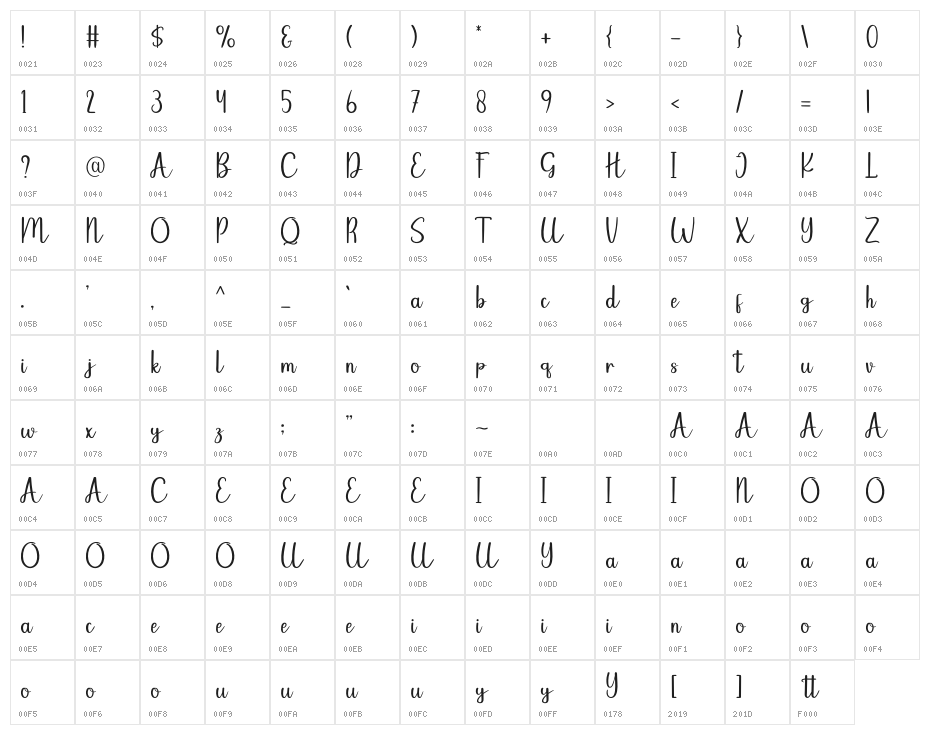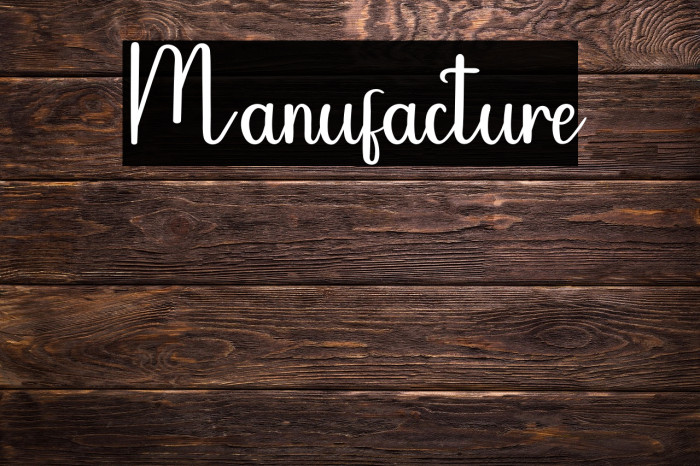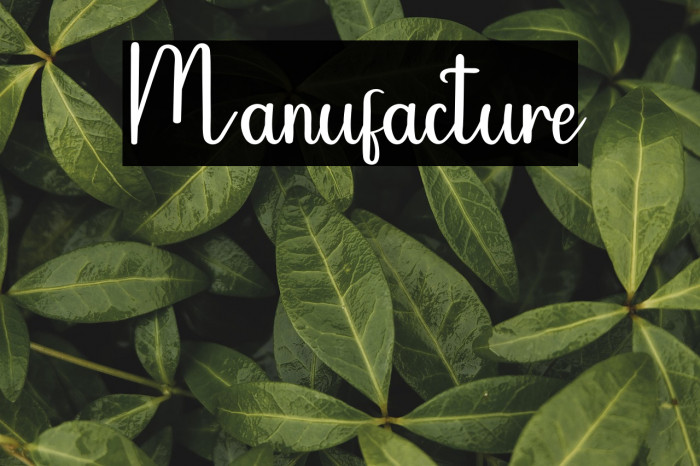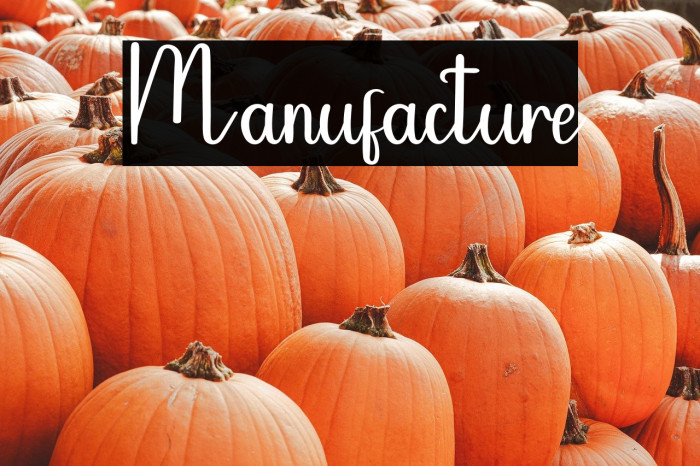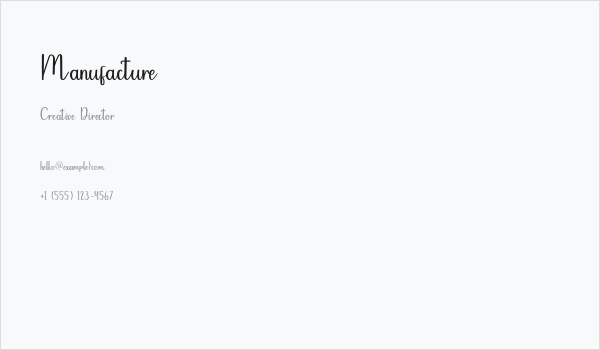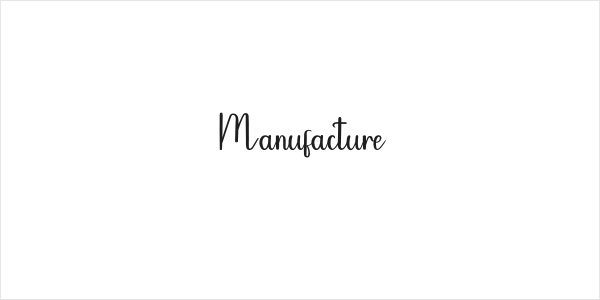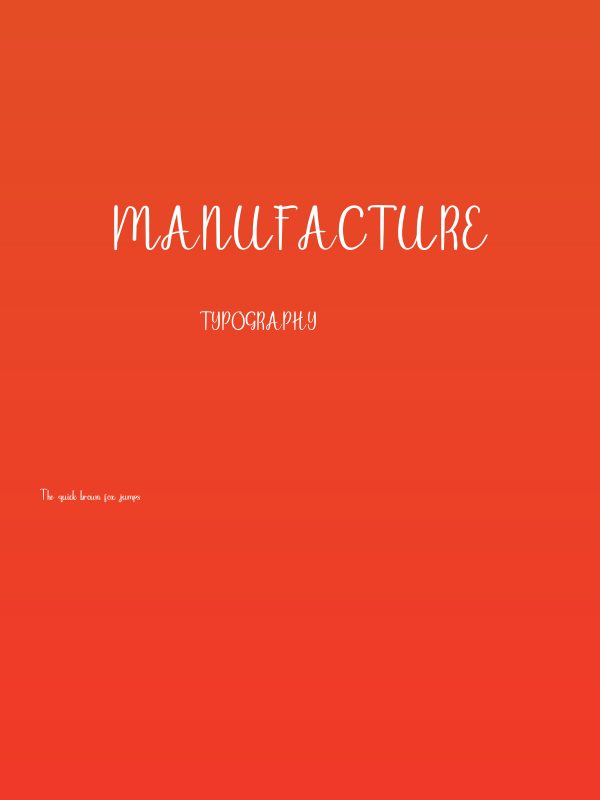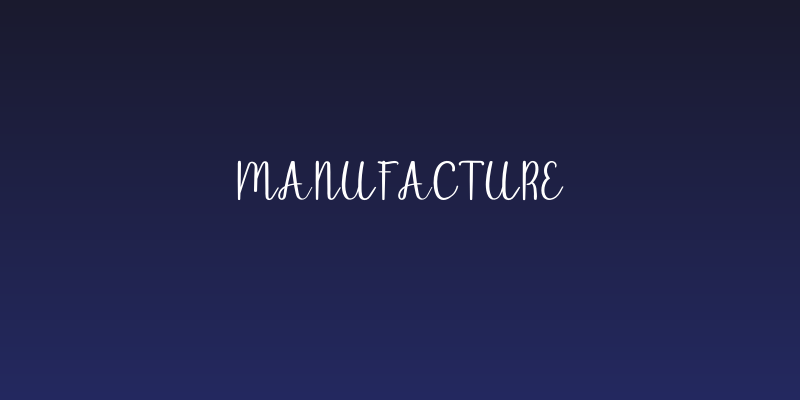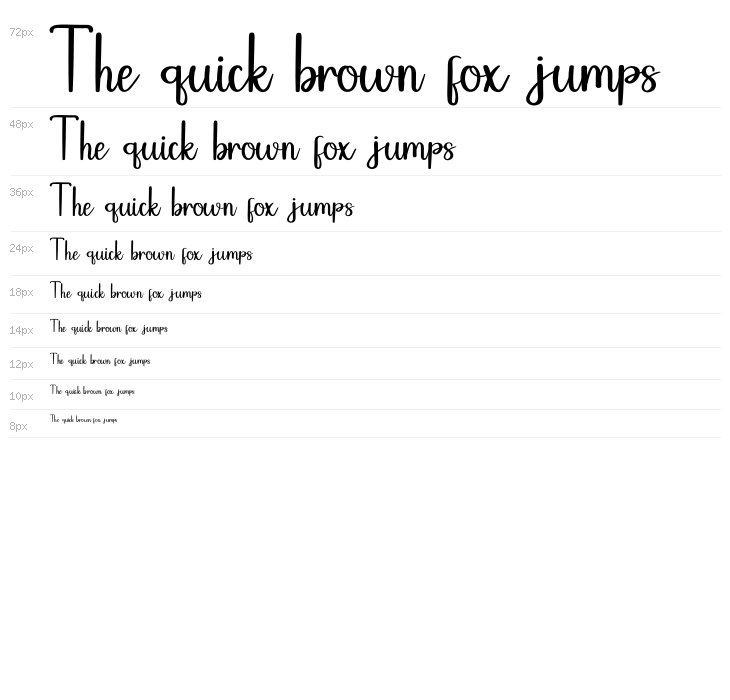
Manufacture Font
Manufacture Description
This font features a playful and whimsical style with a handwritten appearance. The uppercase letters are tall and slightly narrow, with a consistent stroke width that gives them a clean and modern look. The lowercase letters maintain a similar style but with a more fluid and connected script-like appearance, adding a touch of elegance. The numerals are straightforward and align well with the overall design, while the special characters are creatively styled to match the font's unique aesthetic. This font is versatile, suitable for various creative projects that require a personal and approachable touch.
| Proposed Projects | Ideal for greeting cards, invitations, branding, and social media graphics. |